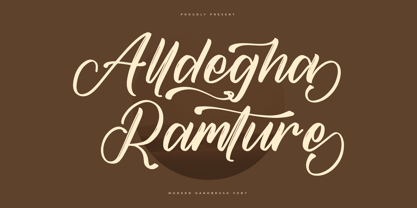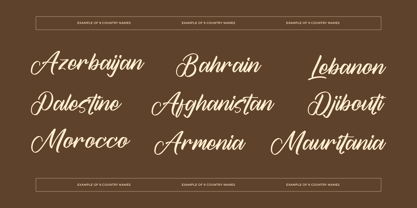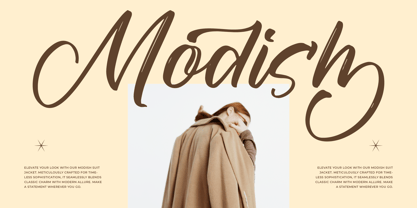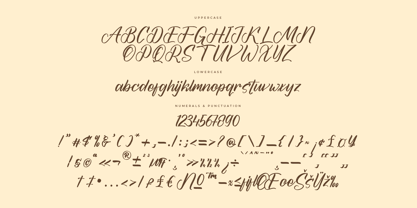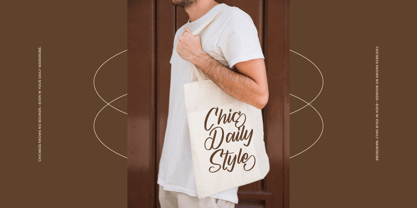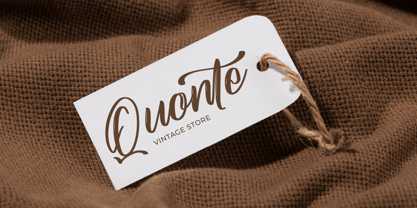
Alldegha Ramture
The Alldegha Ramture Font Family was designed by Heru Utama Putra and published by Letterena Studios. Alldegha Ramture contains 2 styles and family package options. More about this family
Alldegha Ramture is a dazzling script font that exudes elegance and charm. With its fluid strokes and intricate details, it captivates the eye and adds a touch of sophistication to any design project. Perfect for invitations, branding, and headlines, Alldegha Ramture brings a sense of luxury and style to your creations.